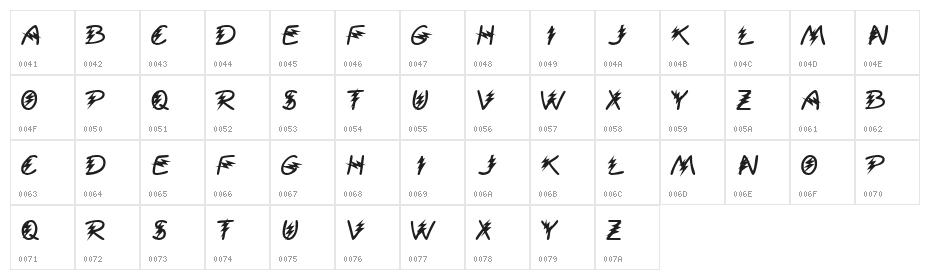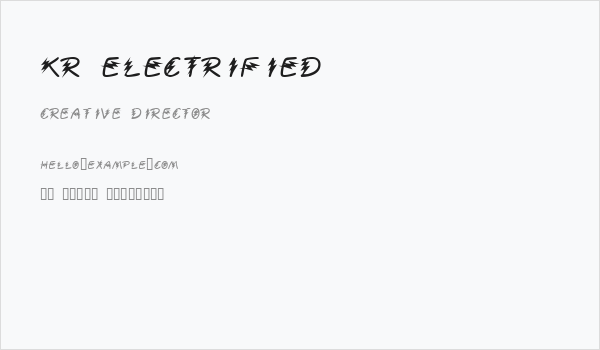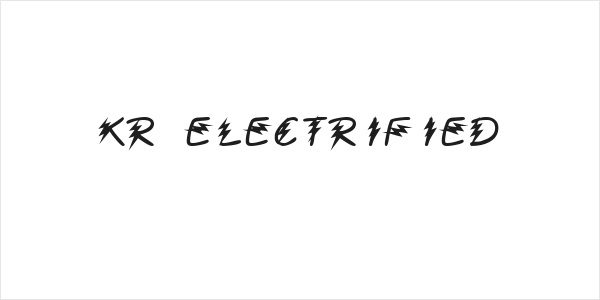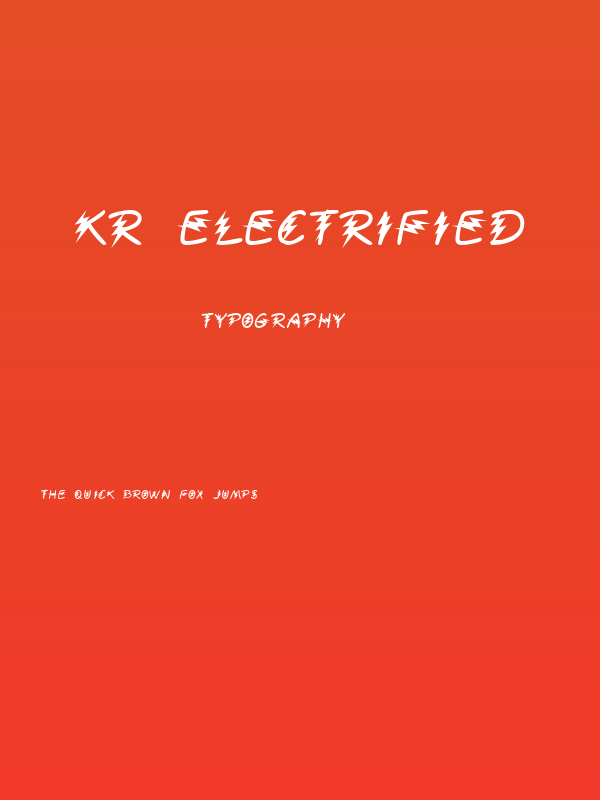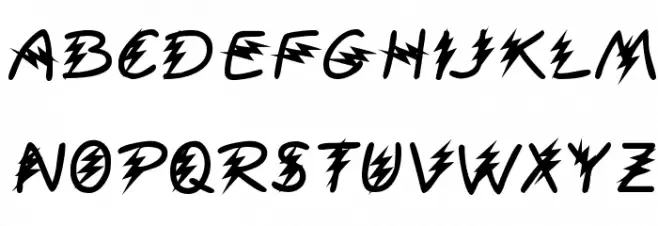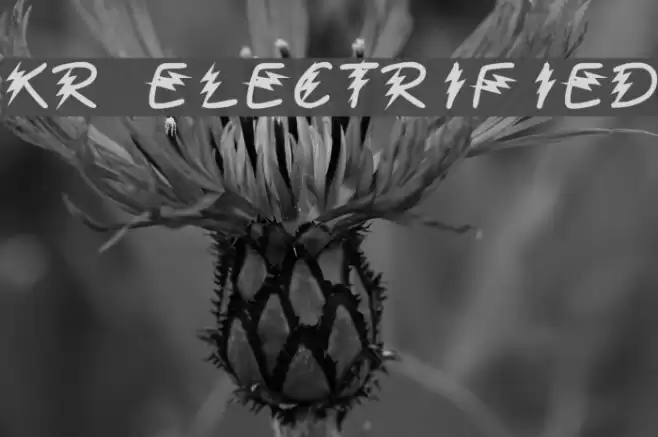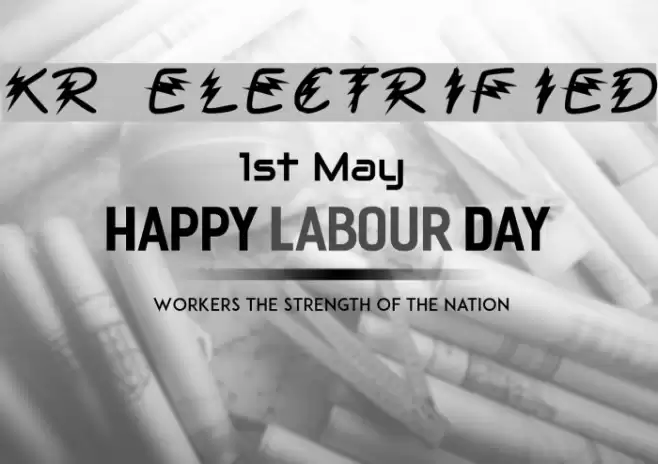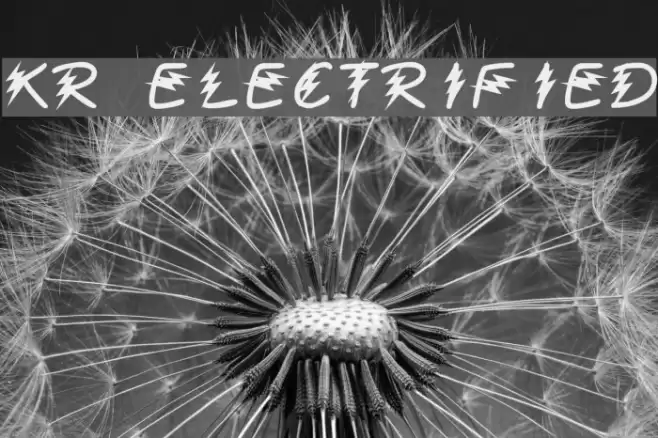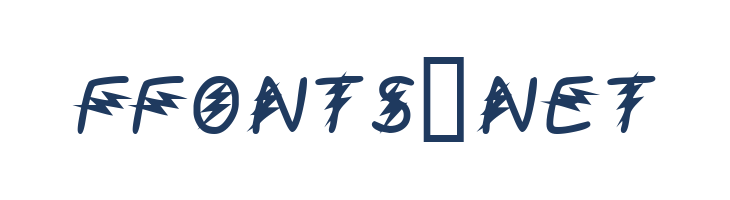
KR Electrified Font
KR Electrified Description
This font features a dynamic and electrifying style, characterized by sharp, angular lines and a bold presence. Each letter is designed with a lightning bolt motif, giving it an energetic and edgy appearance. The uppercase and lowercase letters maintain a consistent theme, with jagged edges and a sense of movement. The numerals and special characters follow the same design principles, ensuring a cohesive look across all glyphs. This font is ideal for projects that require a striking and attention-grabbing typeface, such as event posters, music album covers, or branding for edgy products.
| Proposed Projects | Ideal for event posters, music album covers, and edgy product branding. |